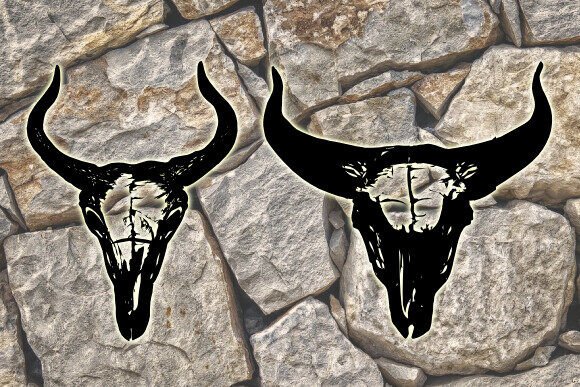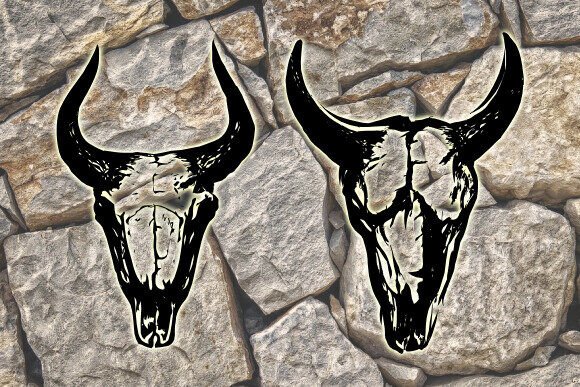
Bull Skulls Font: Unleash the Wild West Spirit in Your Designs
Are you looking for a font that embodies the ruggedness and charm of the Wild West? Look no further than the Bull Skulls Font. This bold, rugged display font is inspired by the American West and features detailed bull skull illustrations alongside striking serif letters. Perfect for western-themed designs, logos, signage, posters, or any project that needs a tough and authentic edge, Bull Skulls is sure to make a statement.
A Font that Embodies Strength and Grit
The Bull Skulls Font is designed to evoke a sense of strength, grit, and rustic charm. The detailed bull skull illustrations are expertly crafted to add a touch of authenticity to your designs, while the serif letters provide a sense of sophistication and elegance. Whether you’re designing for a rodeo, ranch, or vintage-inspired brand, this font delivers a bold statement with character and style.
Perfect for Western-Themed Designs
The Bull Skulls Font is perfect for designers and crafters who want to add a touch of the Wild West to their projects. From logos and signage to posters and packaging, this font is versatile and can be used in a variety of applications. The bold, rugged design of the font makes it perfect for creating eye-catching headlines and titles, while the detailed bull skull illustrations add a touch of whimsy and personality to your designs.
Key Features of the Bull Skulls Font
• Bold and Rugged Design: The Bull Skulls Font features a bold, rugged design that is perfect for creating eye-catching headlines and titles.
• Detailed Bull Skull Illustrations: The font features detailed bull skull illustrations that add a touch of authenticity to your designs.
• Serif Letters: The serif letters provide a sense of sophistication and elegance to your designs.
• Western-Themed: The font is perfect for western-themed designs, including logos, signage, posters, and packaging.
• Versatile: The font is versatile and can be used in a variety of applications, from digital designs to print materials.
How to Use the Bull Skulls Font
The Bull Skulls Font is easy to use and can be incorporated into a variety of design projects. Here are a few ideas to get you started:
• Logos and Branding: Use the Bull Skulls Font to create a bold and memorable logo for your western-themed brand.
• Signage and Posters: Use the font to create eye-catching signage and posters for your rodeo, ranch, or western-themed event.
• Packaging and Product Design: Use the font to add a touch of the Wild West to your product packaging and design.
• Digital Designs: Use the font to create bold and eye-catching digital designs, including social media graphics and website headers.
Tips and Tricks for Using the Bull Skulls Font
Here are a few tips and tricks to keep in mind when using the Bull Skulls Font:
• Use it Sparingly: Because of its bold and rugged design, it’s best to use the Bull Skulls Font sparingly to avoid overwhelming your design.
• Pair it with Other Fonts: Pair the Bull Skulls Font with other fonts to create a unique and visually appealing design.
• Experiment with Colors: Experiment with different colors to find the perfect combination that complements your design.
The Bull Skulls Font is a bold, rugged display font that is perfect for western-themed designs. With its detailed bull skull illustrations and striking serif letters, this font evokes a sense of strength, grit, and rustic charm. Whether you’re designing for a rodeo, ranch, or vintage-inspired brand, the Bull Skulls Font delivers a bold statement with character and style. So why wait? Download the Bull Skulls Font today and unleash the Wild West spirit in your designs!